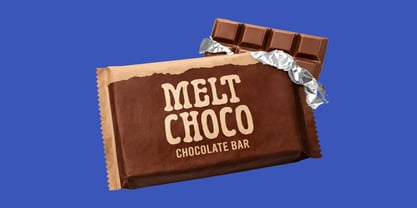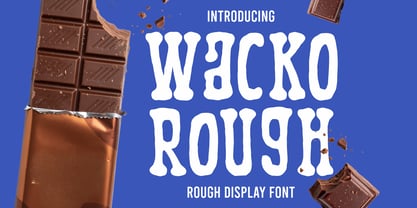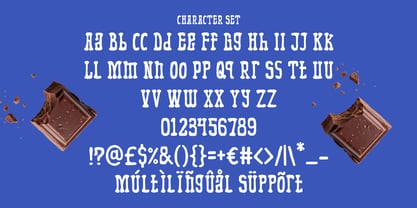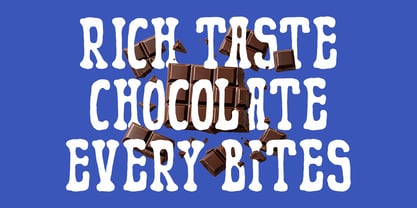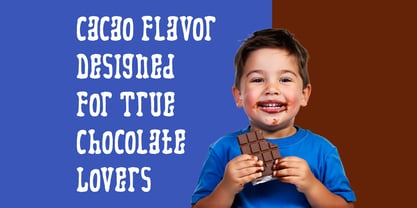
Wacko Rough
La familia tipográfica Wacko Rough fue diseñada por Yesie Erma Yunita y publicada por Shanaf. Wacko Rough contiene 1 estilos. Más información sobre esta familia
Wacko Rough Rough Fun Cartoon Typeface brings chunky letters with bouncy curves and uneven edges. The shape feels playful, tasty, and expressive, while the rough cuts add a handmade food character. Its tall, bold forms give strong impact for chocolate logos, candy branding, dessert packaging, bakery labels, and snack posters. This font also fits cookie boxes, sweet shop signs, kids treats, product stickers, menu titles, and social ads. Designers can use it for brands that need a warm, cheerful, and memorable food identity.
The font works well for chocolate businesses, but its use can grow wider. It also suits candy brands, bakery products, dessert cafés, cookie shops, snack bars, milk drink labels, and family food campaigns. The rounded structure makes each word feel friendly and easy to recognize. Wacko Rough Rough Fun Cartoon Typeface helps short brand names stand out on packaging, posters, labels, cards, book covers, and promotional graphics. Its playful attitude supports sweet products that want charm, motion, and a clear logo presence.
Every letter has a soft but lively structure, with thick strokes and irregular edges. This makes the font feel close to hand lettering without losing readability. Use it for chocolate bars, candy bags, bakery boxes, dessert menus, birthday cards, greeting cards, gift tags, sticker packs, magazine titles, and food advertising. The character set supports uppercase, lowercase, numbers, punctuation, and multilingual text. It gives food branding a cheerful tone that works across print, digital, and product design.